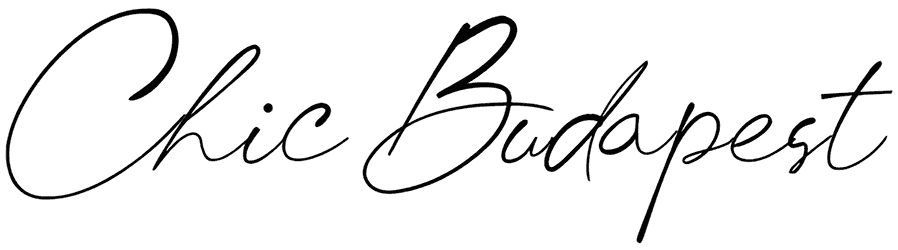
Chic Budapest Font
Go with this handwritten font to get the best result! Chic Budapest is coming in slim and wavy characters and works perfectly for cosmetic packages, printed quotes, tattoos, and so on. Download it like a shot, and it will add an artistic touch to your text layout. If you haven’t checked RB recently, do it now and choose between hundreds of signature fonts!